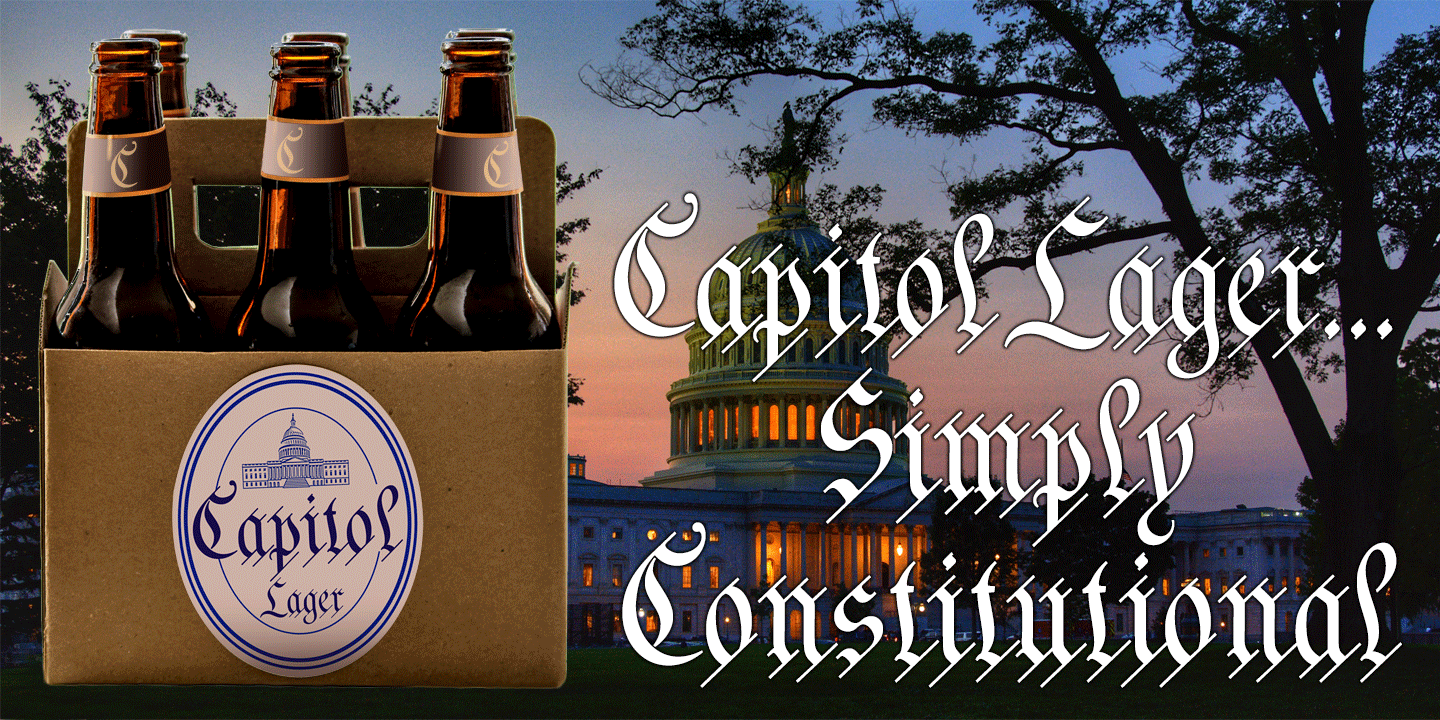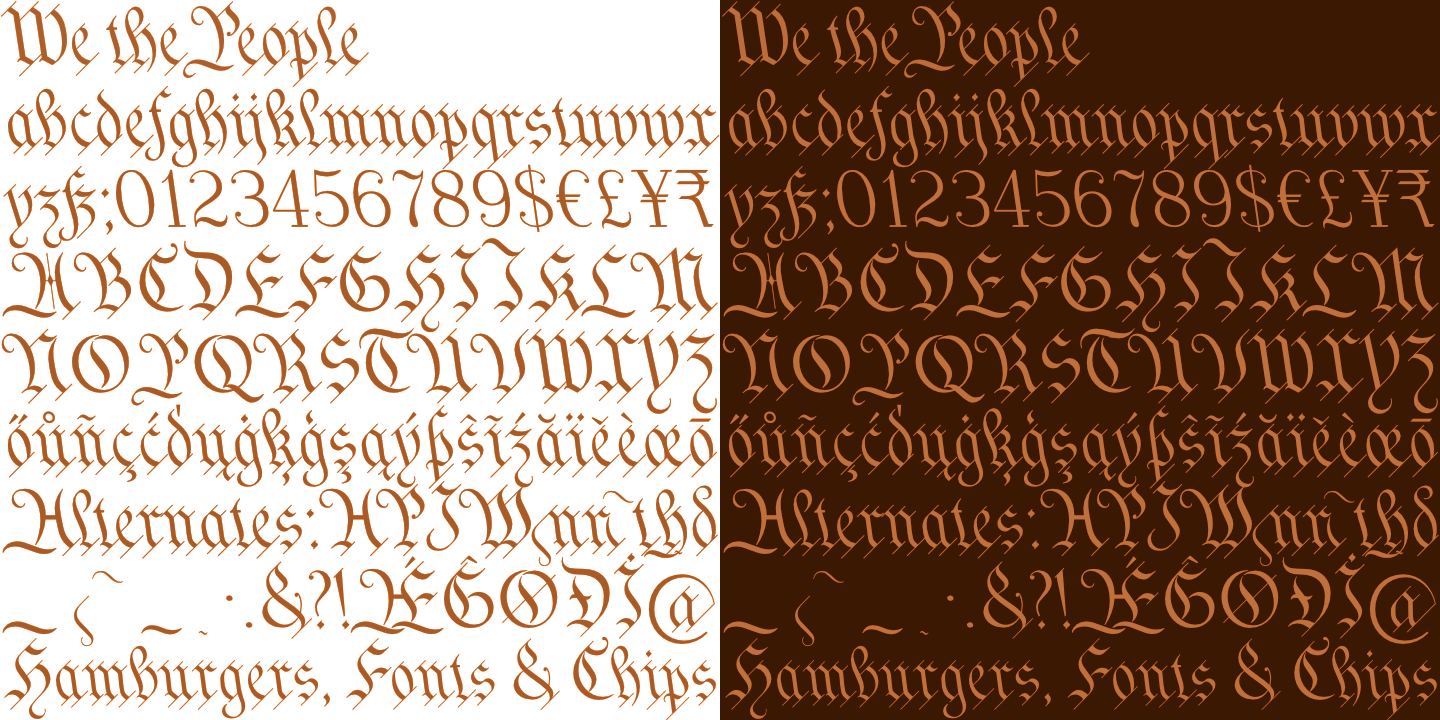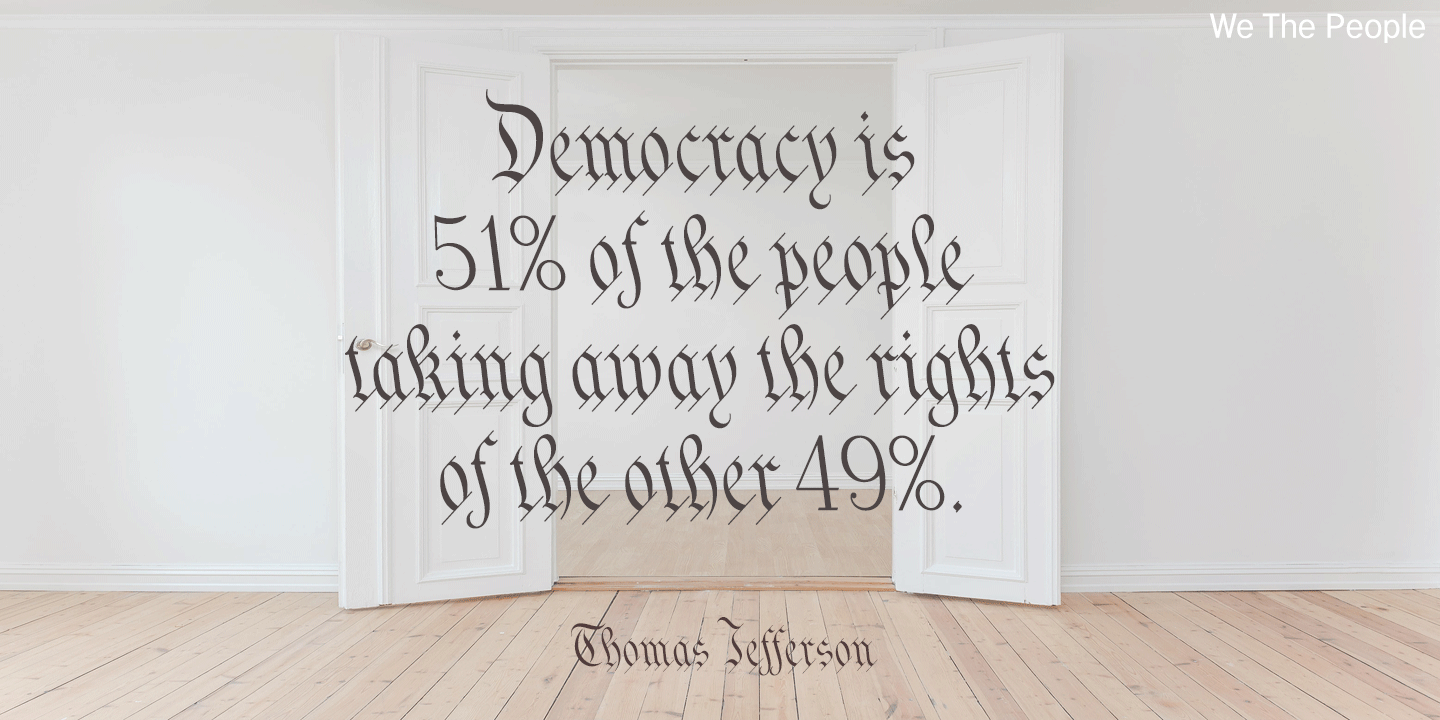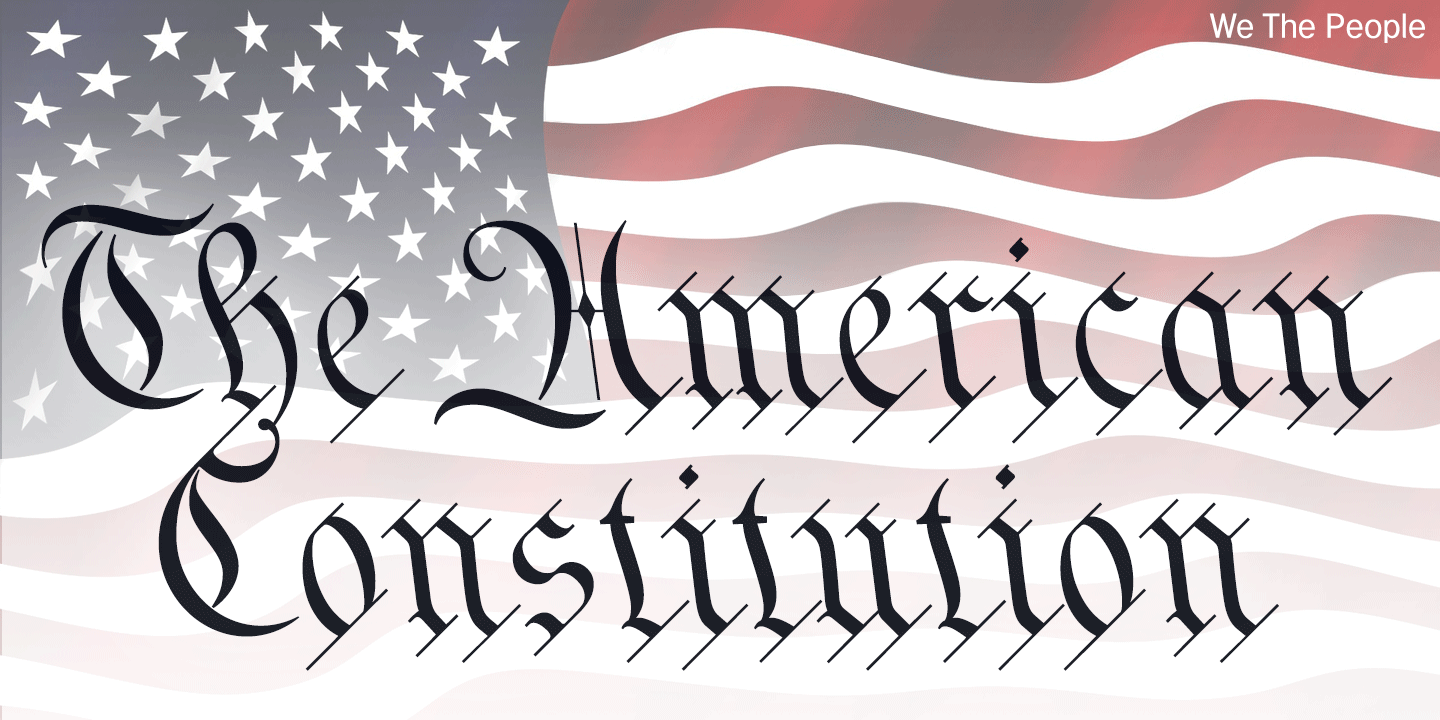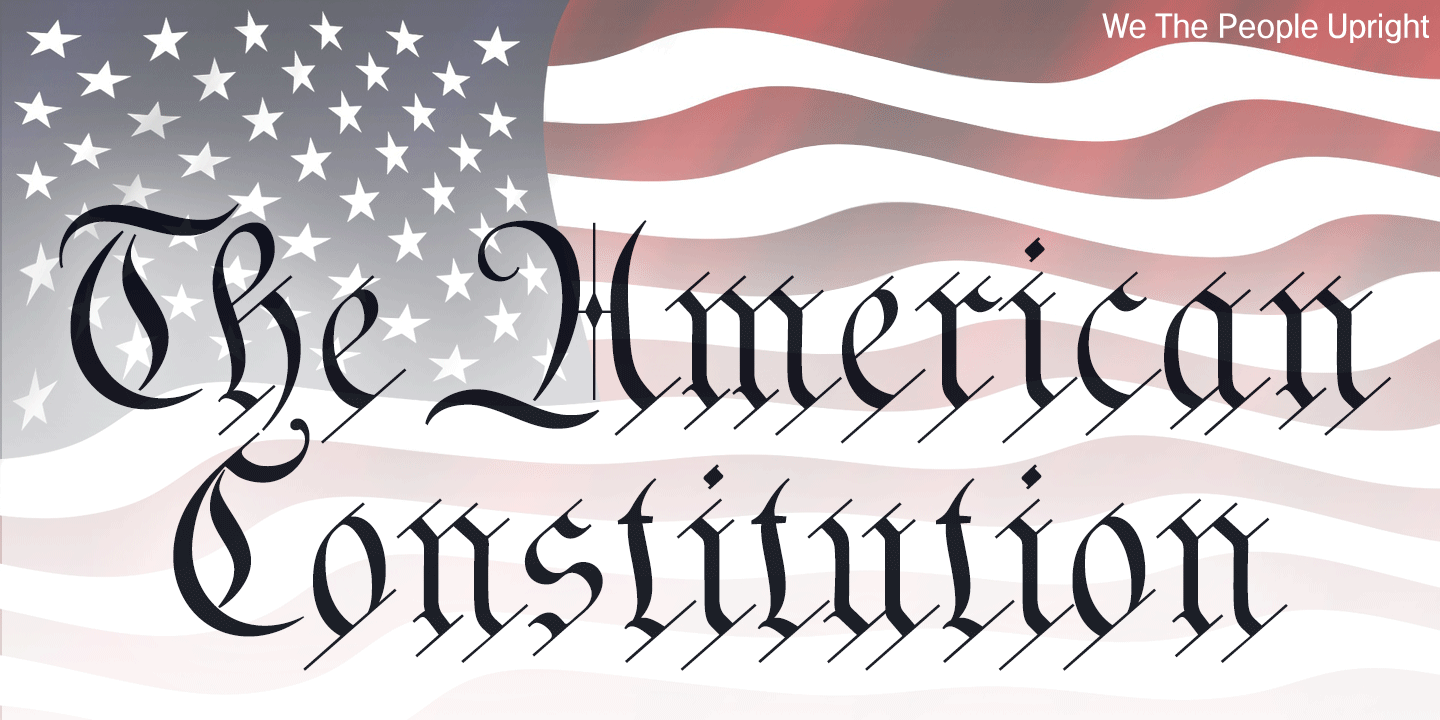
About We The People
This typeface is extrapolated from the ‘We the People’ calligraphy of the handwritten US Constitution Preamble which employed a style based on German Text and Square Text exemplars from George Bickham’s penmanship copy-books, the most…